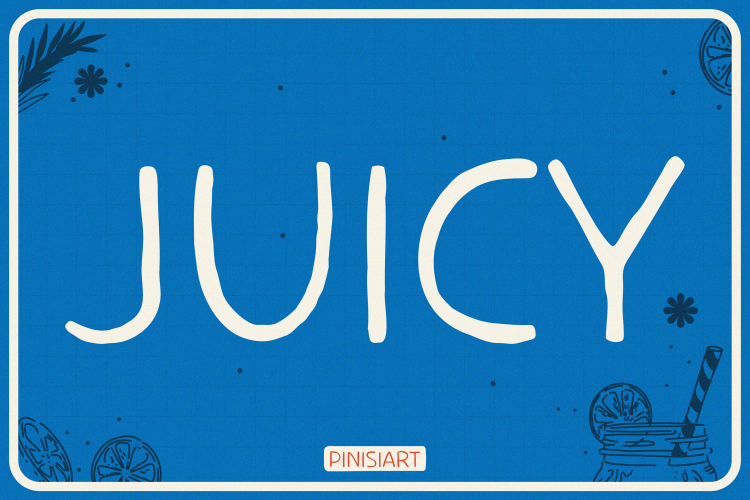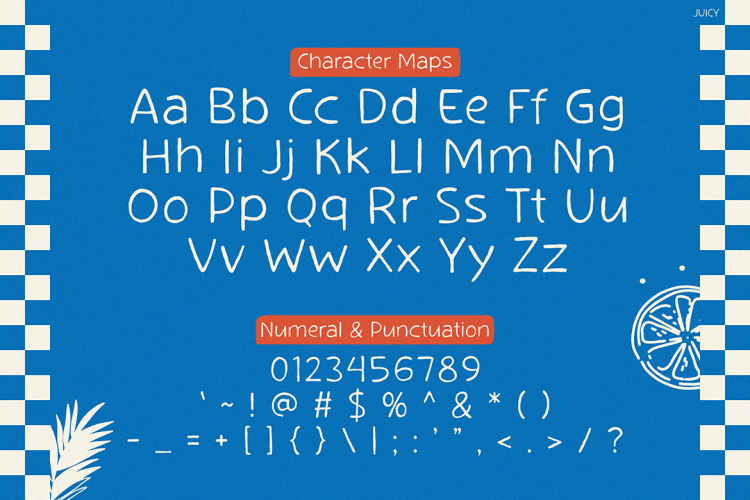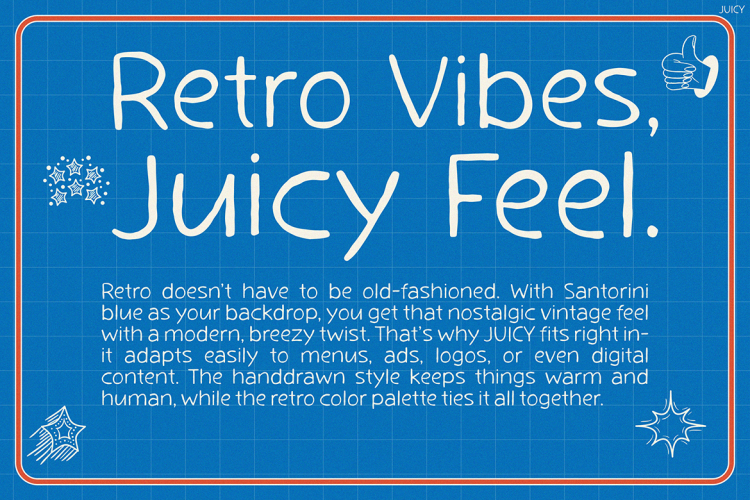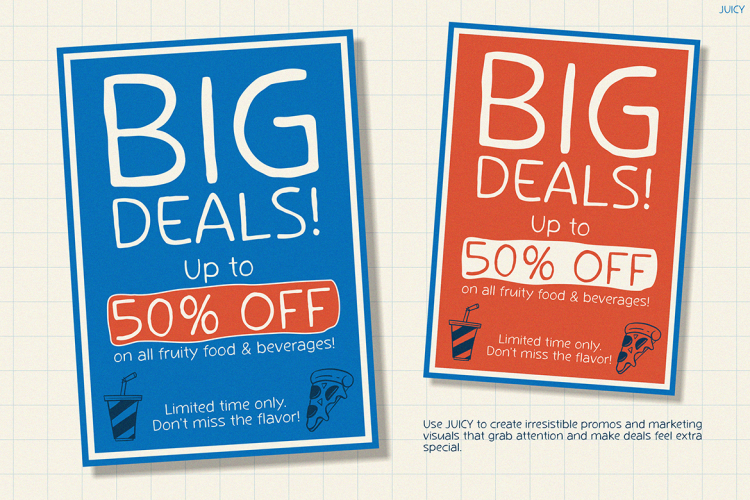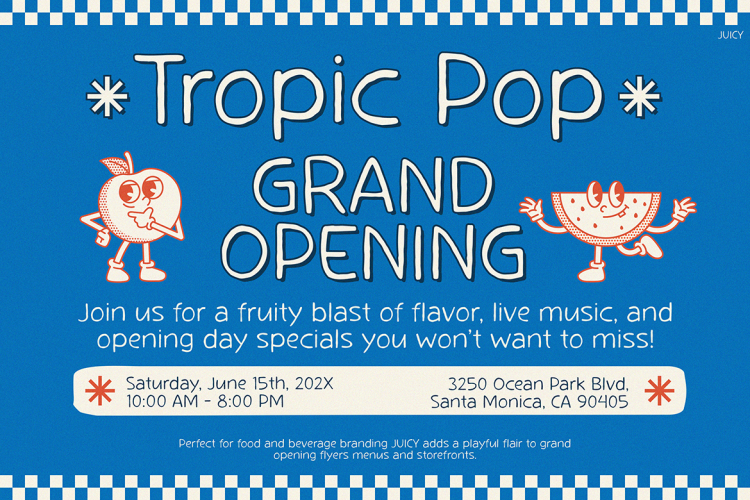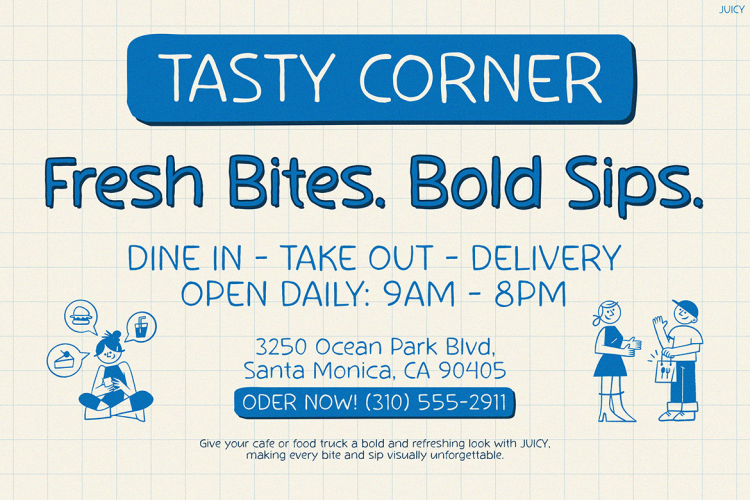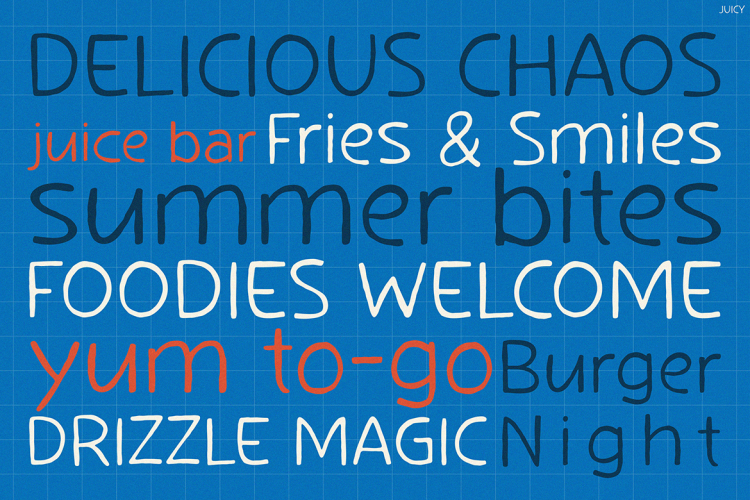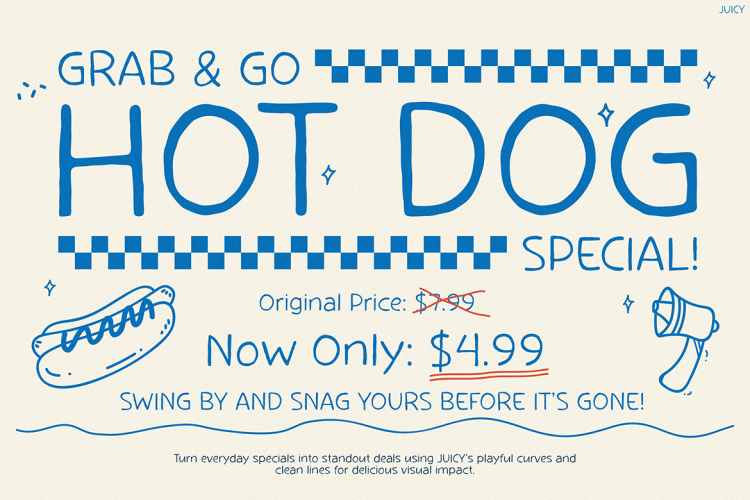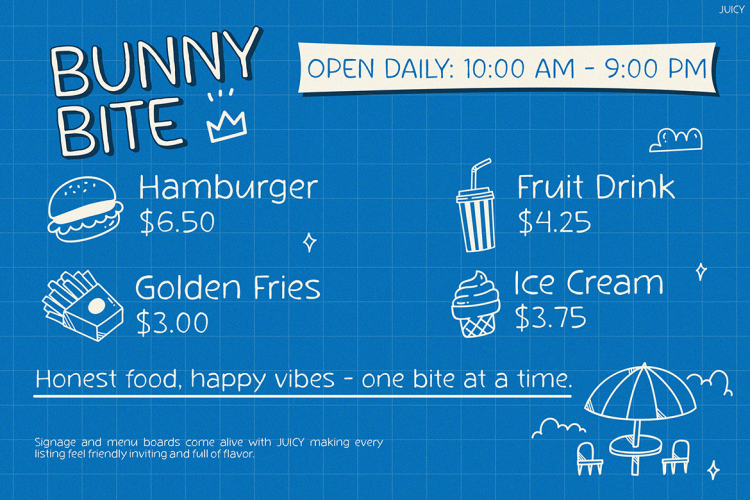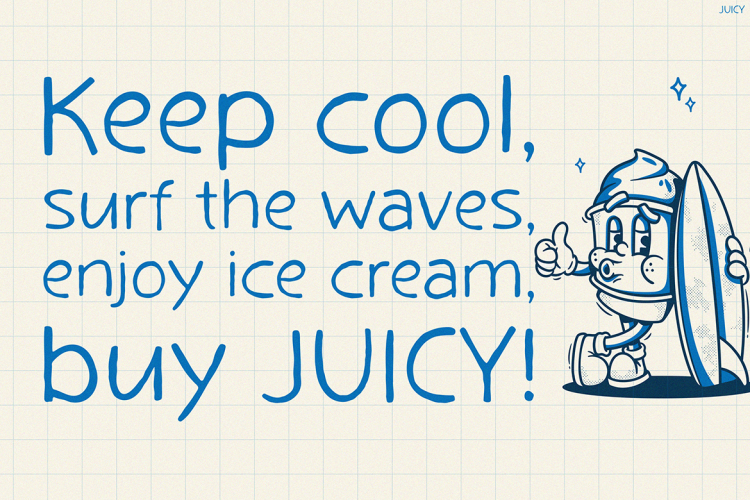
Handwriting Font Juicy starts with a delightful twist. Furthermore, it blends retro vibes with a modern, breezy flair. This, in turn, sets it apart in typography. Its hand-drawn charm features playful curves and clean lines. Additionally, it exudes a nostalgic Santorini blue backdrop. Moreover, the font merges vintage aesthetics with a fresh, juicy feel. Consequently, it adapts easily to various projects. Bold letters come with whimsical stars and doodles. As a result, this creates a warm, human touch. Likewise, the retro color palette ties it together. Therefore, it enhances menus, ads, logos, and digital content. Ultimately, the design transforms ordinary pieces into standouts. In addition, itโs a top choice for personality and nostalgia.
Handwriting Font Juicy Suitable For
Handwriting Font Juicy is a dynamic tool. Furthermore, it brings creativity to projects. Its warm, hand-drawn style crafts standout designs. Additionally, itโs perfect for hot dog specials or trendy menus. Moreover, itโs ideal for food promotions with juicy visuals. Consequently, it suits artisanal brands and digital marketers. Likewise, event planners love it for retro invitations. In turn, bloggers enhance posts with it. Therefore, the font works for print and online media. As a result, it appeals to designers and hobbyists. Ultimately, its versatility meets professional and enthusiast needs. In addition, it values aesthetic appeal and functionality.